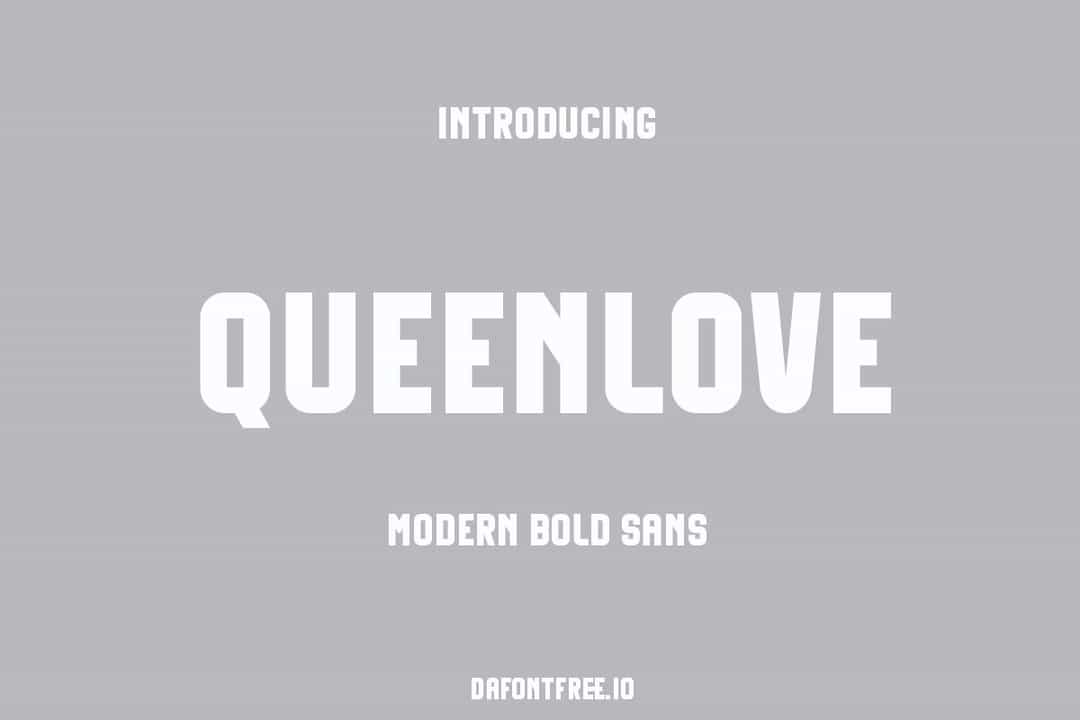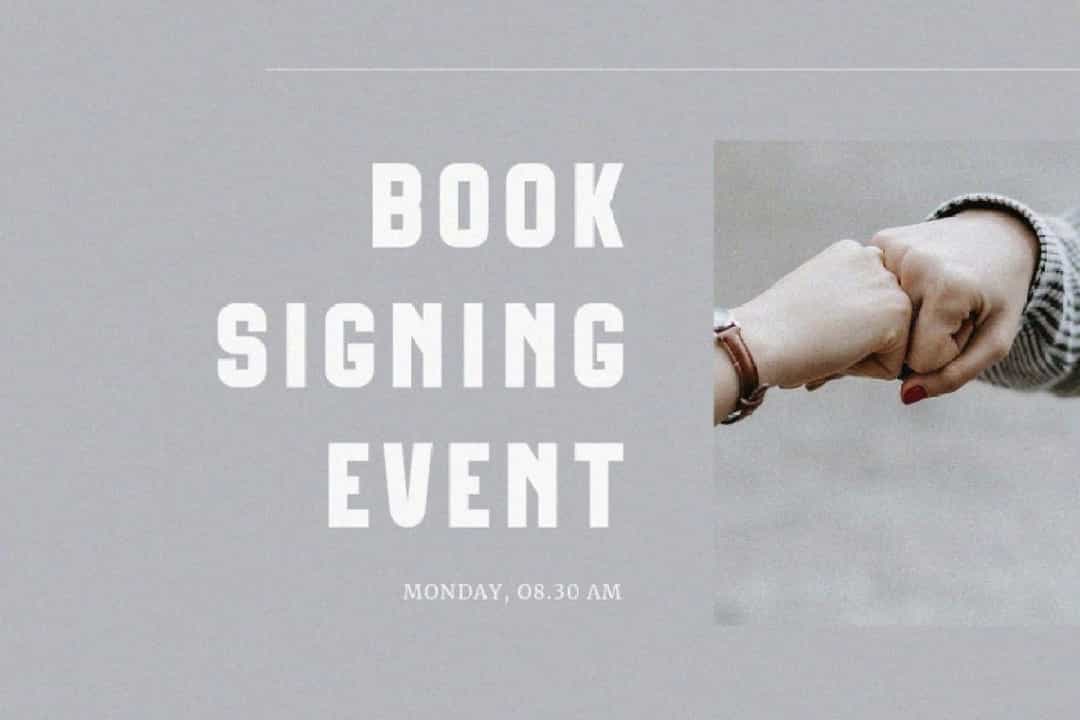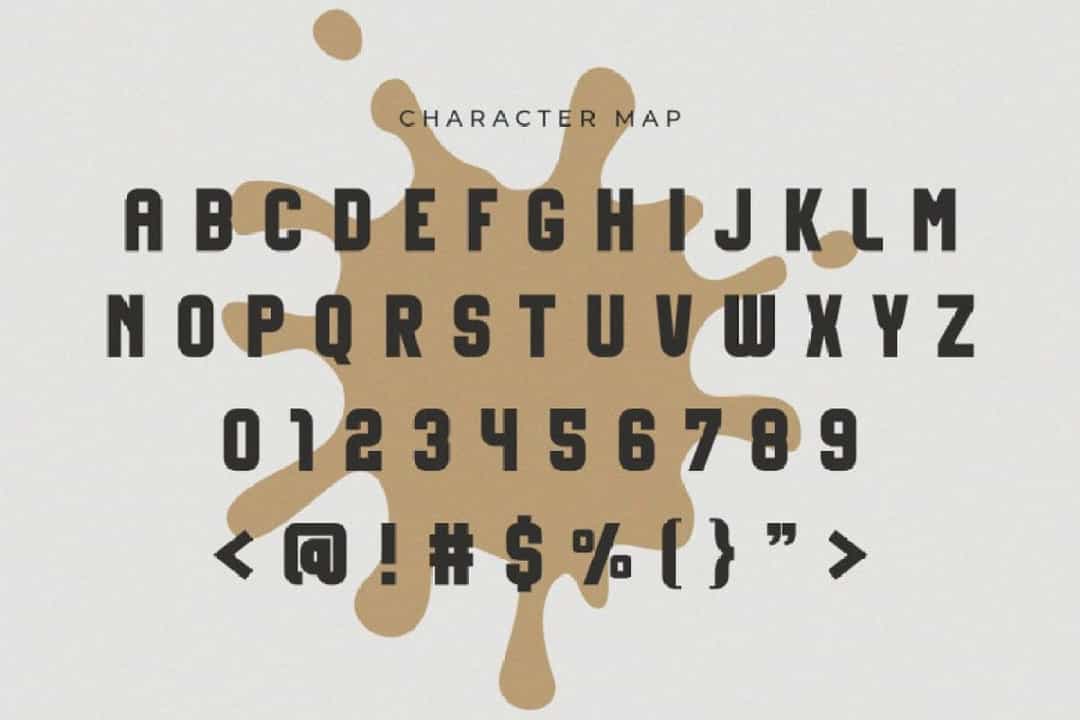
Queenlove is an eye-catching sans serif font with distinct and well-balanced letters that create an incredible masterpiece. You will fall in love with its amazing versatility before using it to craft stunning designs!